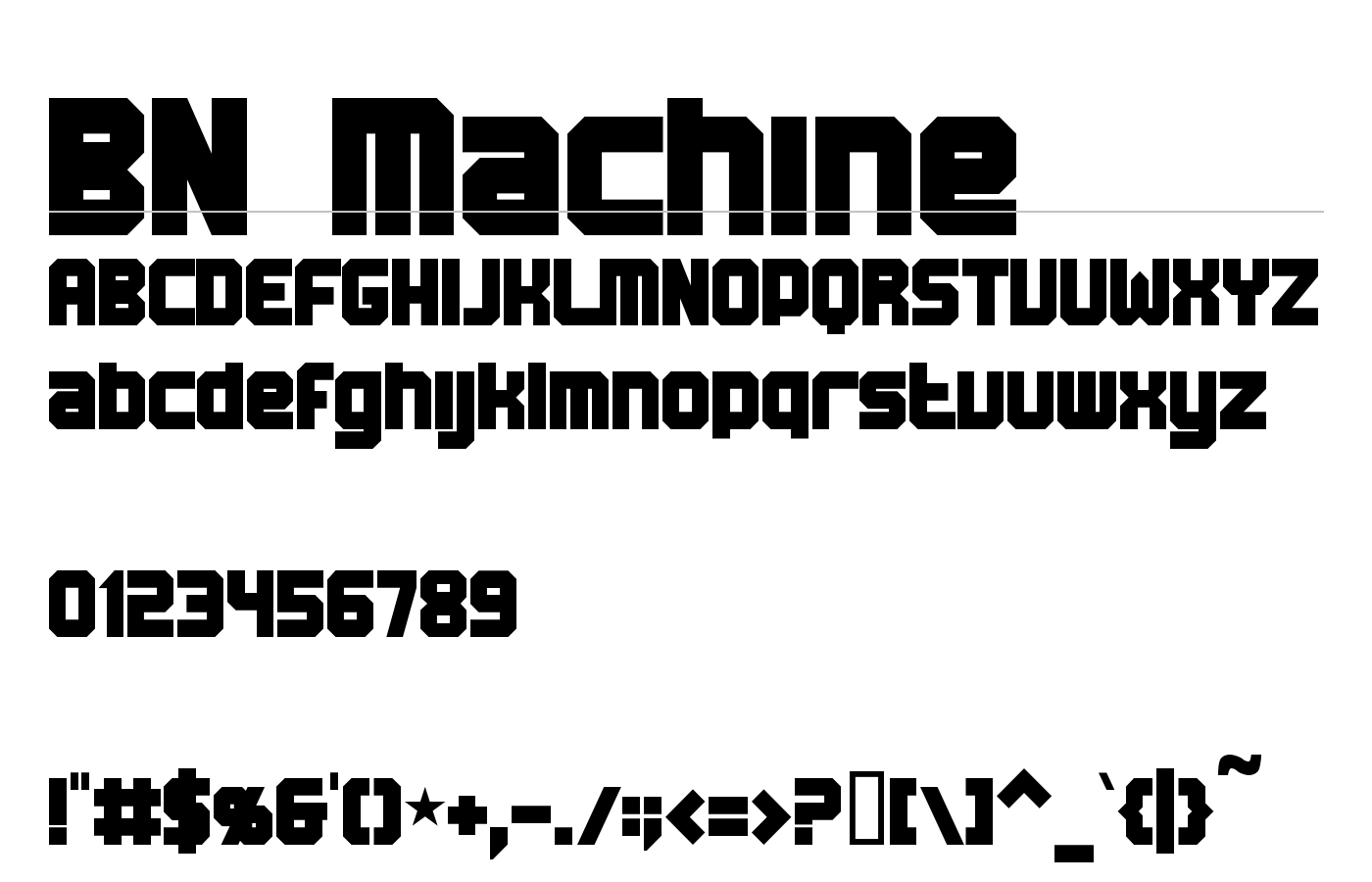
BN Machine is a bold, geometric sans serif font with a strong industrial feel, featuring thick, blocky letterforms and sharp, angled corners. Its high-impact, compact design makes it perfect for technology or machinery-related branding, logos, and headlines where a modern, mechanical vibe is desired. This typeface works well in settings that demand attention and convey strength and precision.
BN Machine Font
About BN Machine Font